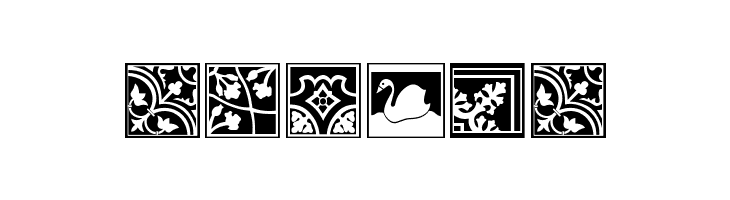
• Snowballs Regular
A festive script font with snowflake embellishments, perfect for holiday-themed projects.
• Amsyong Moment
A bold, expressive script font with a lively handwritten style.
• Improvement
A bold, expressive handwritten font with dynamic strokes and artistic flair.
• ClementineRegular
A dynamic and fluid handwritten font with elegant, flowing strokes.
• Pavements Regular
A bold, decorative font with a three-dimensional, detailed design.
• Menthari
A modern, cursive font with bold, flowing strokes and elegant connections.
• Elegance_PersonalUseOnly
The image contains decorative elements, not a standard font.
• FUNTASTIC MILLION MOMENT-DISTOR
A bold, distorted font with a playful and energetic style.
• Agreement Italic
A modern, italicized font with a sleek and dynamic appearance.
• Agreement Bold Italic